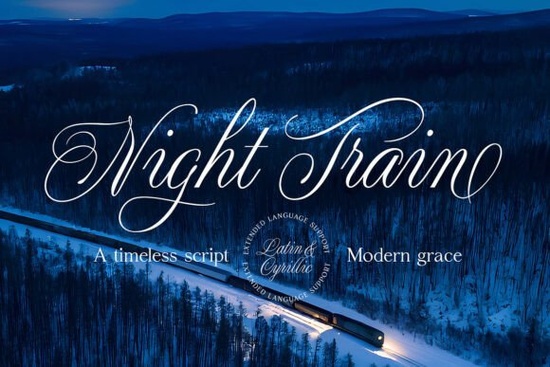
Designers, crafters, and small business owners looking for a unique typeface that adds a touch of elegance to their work will find the Night Train Font to be a standout choice. This calligraphy-style font blends vintage charm with modern sophistication, making it ideal for projects that require a refined aesthetic. Whether you're working on wedding invitations, luxury branding, or social media graphics, Night Train offers a distinctive look that sets your designs apart.
The Night Train Font is particularly well-suited for those in the hospitality, event planning, and luxury goods industries. Its fluid, hand-drawn letterforms bring a sense of movement and grace, while the ultra-fine hairlines add a level of detail that feels both delicate and strong. This balance makes it perfect for high-end applications where visual impact matters most.
What Makes Night Train Stand Out?
Unlike many other script fonts, Night Train doesn’t lean too heavily into either retro or modern styles. Instead, it finds a middle ground that feels timeless. The sweeping loops and rhythmic flow of the letters give it a cinematic quality, making it a go-to option for anything that needs a bit of drama without being overwhelming.
If you're looking for a font that can elevate your brand’s visual identity, consider how Night Train could fit into your design toolkit. It works especially well when paired with clean, minimalist layouts, allowing the font to take center stage without competing with other elements.
Best Uses for Night Train Font
Independent boutique hotels often use this font to create a sense of exclusivity and refinement in their branding. Wedding stationery is another popular application, as the font’s graceful lines convey a sense of ceremony and tradition. For travel-related businesses, Night Train can help communicate a feeling of adventure and sophistication in packaging and promotional materials.
On social media, this font is great for headers or captions that need to feel both elegant and engaging. Its nocturnal vibe also makes it a good fit for brands that want to evoke a sense of mystery or nighttime allure.
How to Use Night Train Effectively
To get the most out of Night Train, consider the following tips:
- Use it sparingly: Because of its detailed nature, it works best as a headline or accent text rather than body copy.
- Pair it with sans-serif fonts: This contrast helps balance the script’s intricacy and improves readability.
- Experiment with colors: Dark tones like black or deep navy enhance the font’s shadowy, streamlined feel.
When designing with Night Train, keep the overall composition simple and focused. Let the font do the talking without overcomplicating the layout.
Whether you're creating custom designs for clients or working on personal projects, the Night Train Font offers a versatile and stylish solution. Its unique blend of elegance and modernity makes it a valuable addition to any designer’s collection.